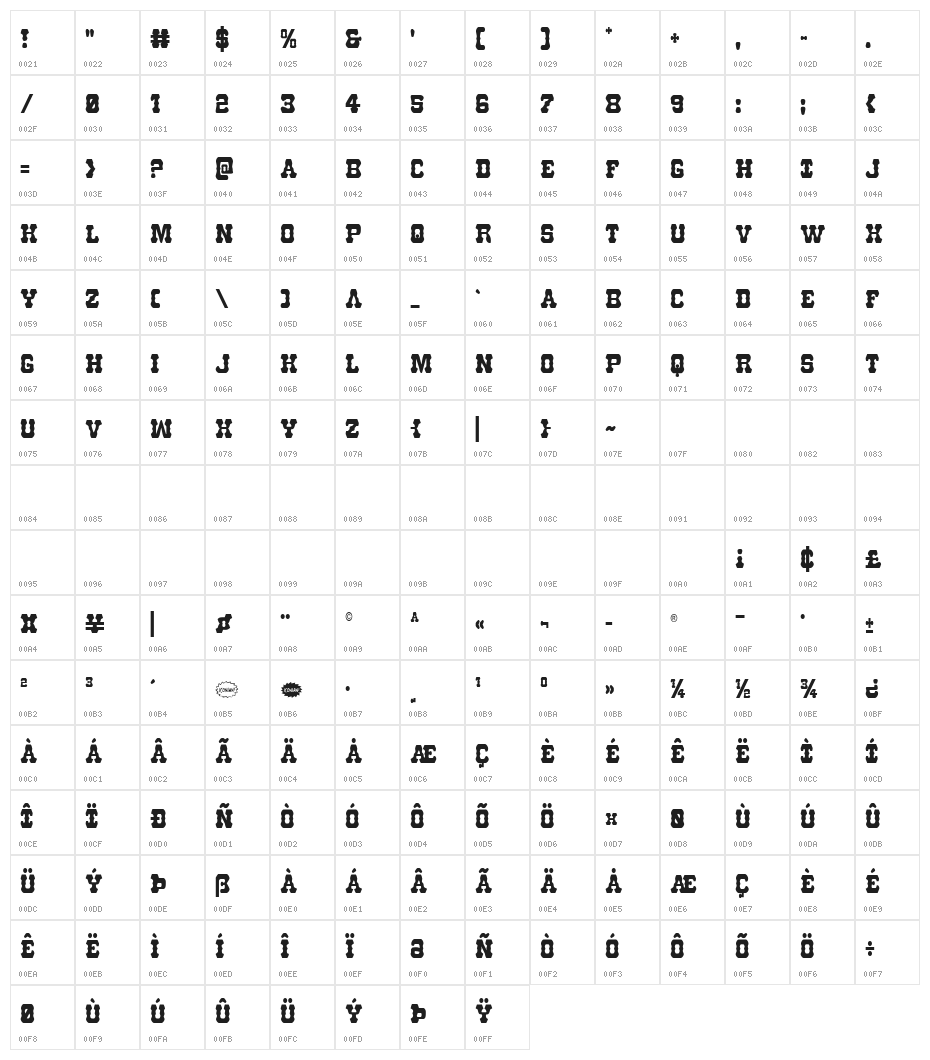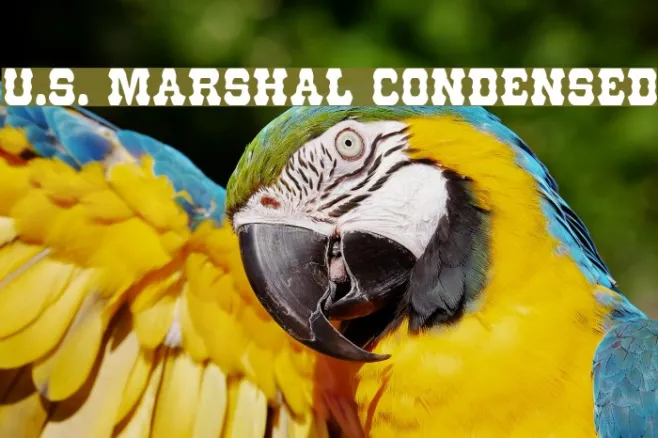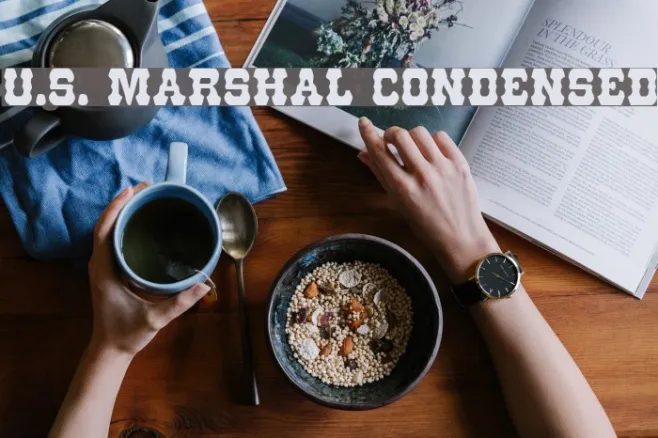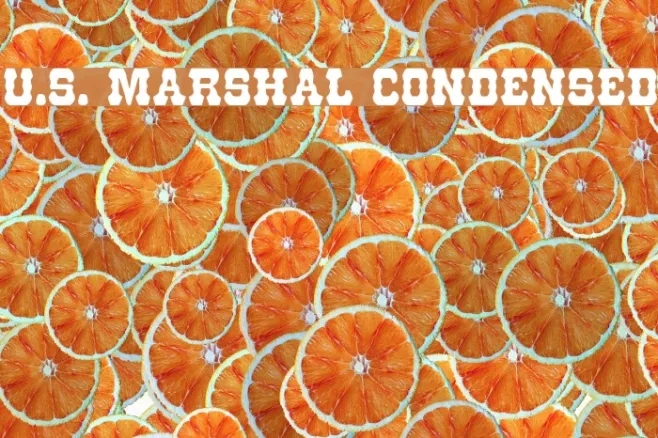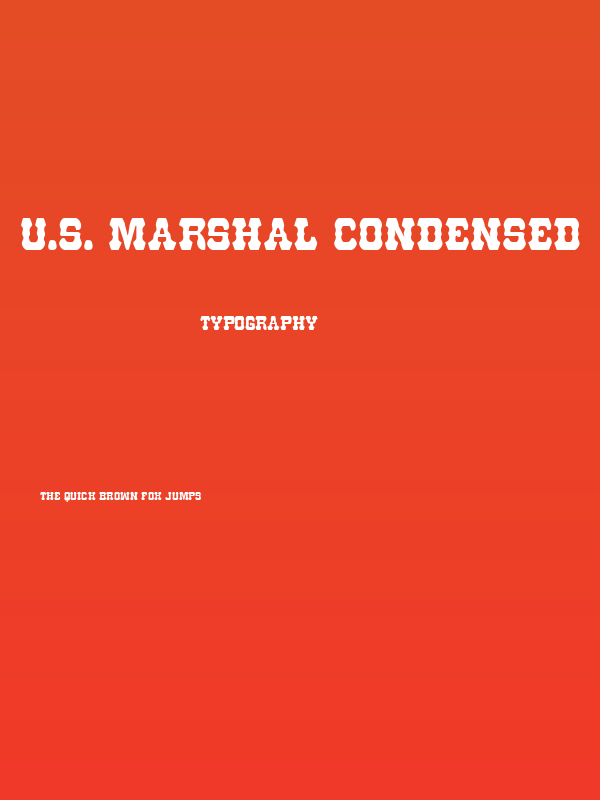
U.S. Marshal Condensed Font
U.S. Marshal Condensed Description
This font features a bold, condensed style with a distinctly Western or vintage aesthetic. The characters are robust and heavily weighted, with thick strokes and minimal contrast between thick and thin lines. The design includes unique cut-out shapes within the letters, adding a decorative flair that enhances its visual impact. The uppercase and lowercase letters maintain a consistent style, while the numerals and special characters are equally bold and striking. This font is ideal for creating a strong, attention-grabbing presence in any design.
Overall StyleVintage
Proposed ProjectsIdeal for posters, signage, branding projects, and any design requiring a strong, vintage aesthetic.